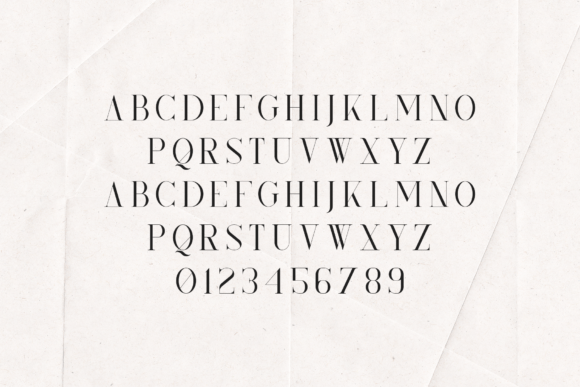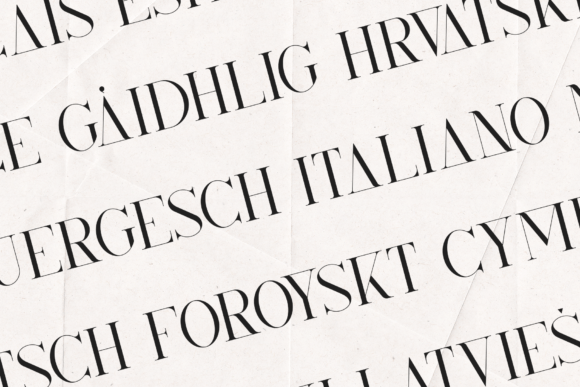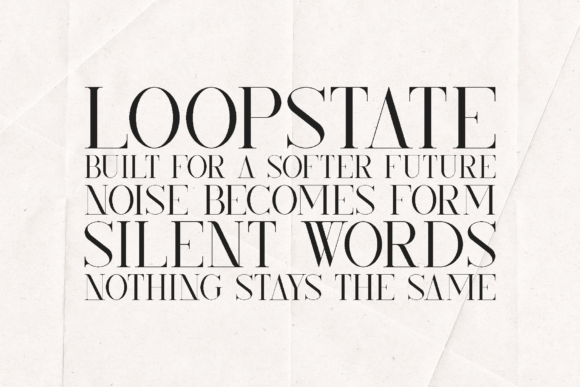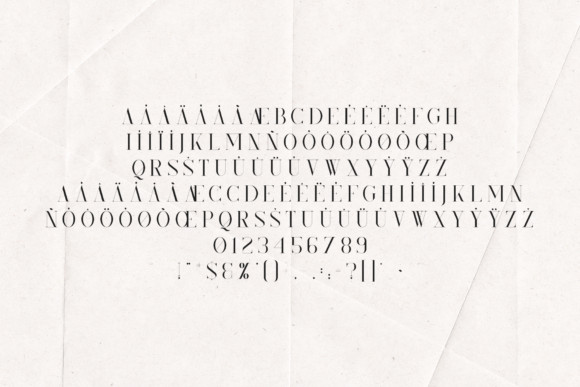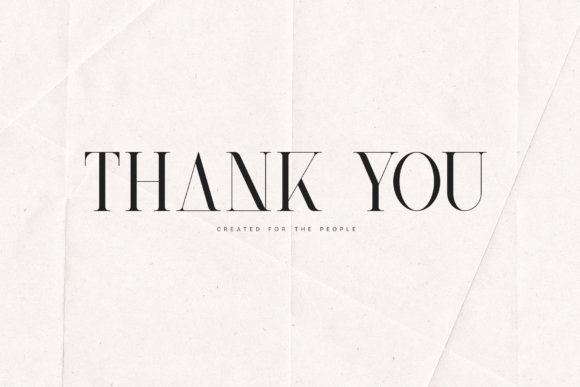
The Birth of a Classic: Introducing Kindel Font
Have you ever sat in a quiet coffee shop, surrounded by the soft hum of laptops and the gentle chatter of strangers, and suddenly felt the urge to create something timeless and elegant? For designers, that moment often sparks the search for the perfect font – one that exudes refinement, sophistication, and a hint of classic charm. Enter Kindel Font, a modern serif font designed to elevate your branding and visual identity to new heights.
With its carefully crafted letterforms and high-contrast strokes, Kindel Font is the perfect blend of classic and contemporary. Whether you’re working on a luxury packaging project, designing a magazine, or crafting a brand identity, Kindel Font is a valuable addition to your toolkit. Its versatility and attention to detail make it a go-to choice for designers working in fashion, lifestyle, beauty, publishing, and premium brand systems.
Kindel Font Key Features
- Font Family: Kindel is a serif font family designed for body text, available in several weights and styles.
- Unique Characteristics: Kindel Font features a unique blend of traditional and modern elements, with a focus on readability and aesthetic appeal, making it an excellent choice for body text in various contexts.
- Language Support: Kindel Font supports a wide range of languages, including Latin, Greek, and Cyrillic scripts, making it a versatile choice for global audiences.
Kindel Font Review
I recently had the chance to work with the Kindel font, and I must say it’s a solid addition to any design project. Here’s my honest review.
- Unique and elegant aesthetic**: Kindel font has a distinctive, refined look that can elevate your design to the next level.
- Excellent legibility**: The font is well-designed, making it easy to read, even at smaller font sizes.
- Wide character set**: Kindel font includes a comprehensive set of characters, including international symbols and ligatures.
- Not ideal for bold or display text**: While Kindel font looks great in body text, it may not be the best choice for headlines or display text, as it can lose its elegance at larger font sizes.
- No matching italic variant**: If you need an italic version of Kindel font, you’ll be out of luck, as it’s not available.
The Kindel font is a great choice for designers looking for a clean, elegant font for body text. Its unique aesthetic and excellent legibility make it a solid addition to any project. However, its limitations, particularly with bold and display text, and the lack of an italic variant, might be a drawback for some users.
Kindel Font is a versatile font that can be used for a variety of applications, including:
- Editorial and publishing